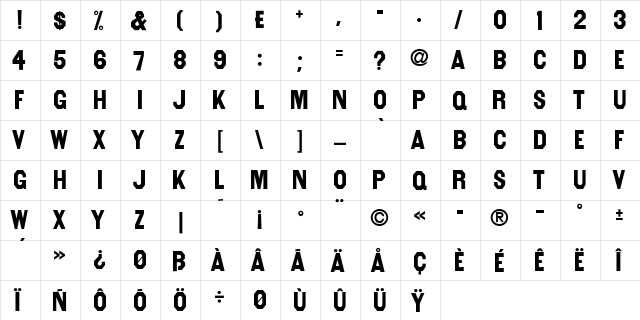
VintageGothic-Regular Regular
Design Context for VintageGothic-Regular Typeface
VintageGothic-Regular wears its vintage influences proudly, with letterforms that recall mid-century signage, classic packaging, and nostalgia-driven design.
Font Pairing: Combine VintageGothic-Regular with a simple slab or neutral sans — period-accurate companions reinforce the vintage feel without competing for attention.
Pro Tip: Lean into VintageGothic-Regular's period character by pairing it with aged paper textures, muted colour palettes, and vintage illustration styles.